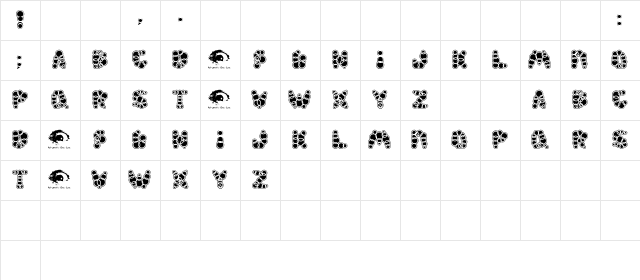
ShampooSW Regular Free Font
ShampooSW Regular
Design Context for ShampooSW
ShampooSW is a composed and adaptable typeface that performs quietly and consistently across a wide range of design contexts.